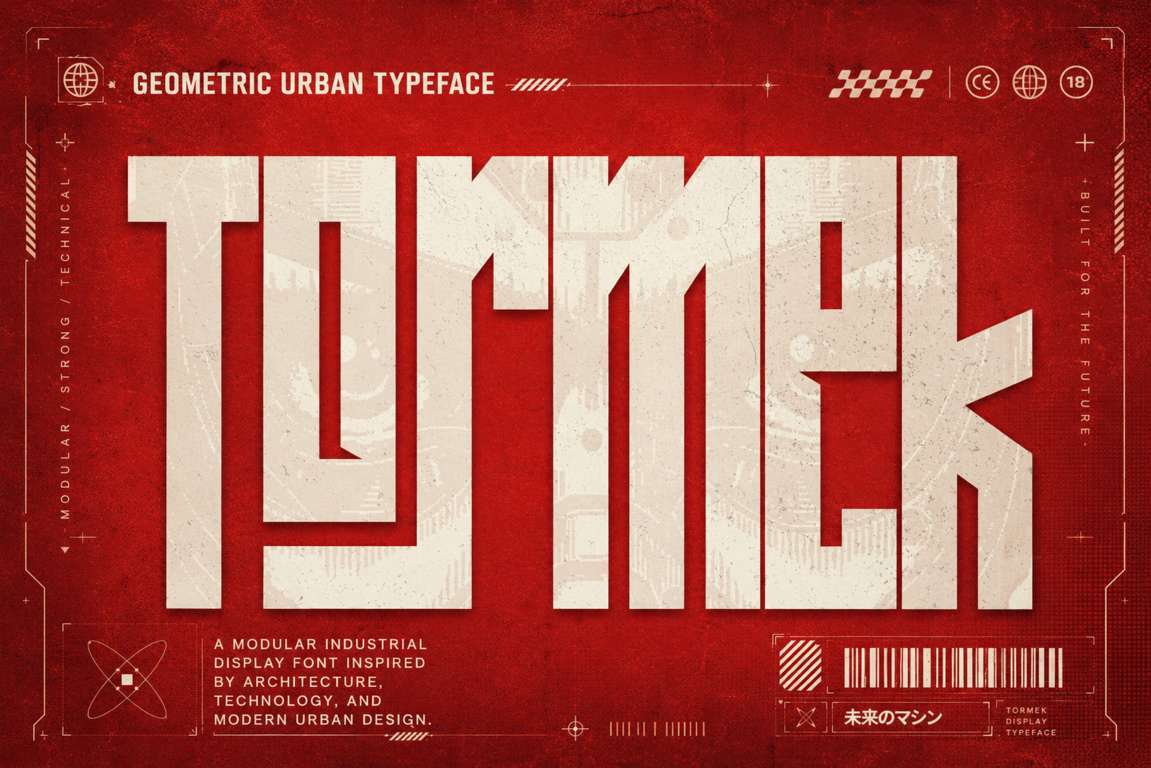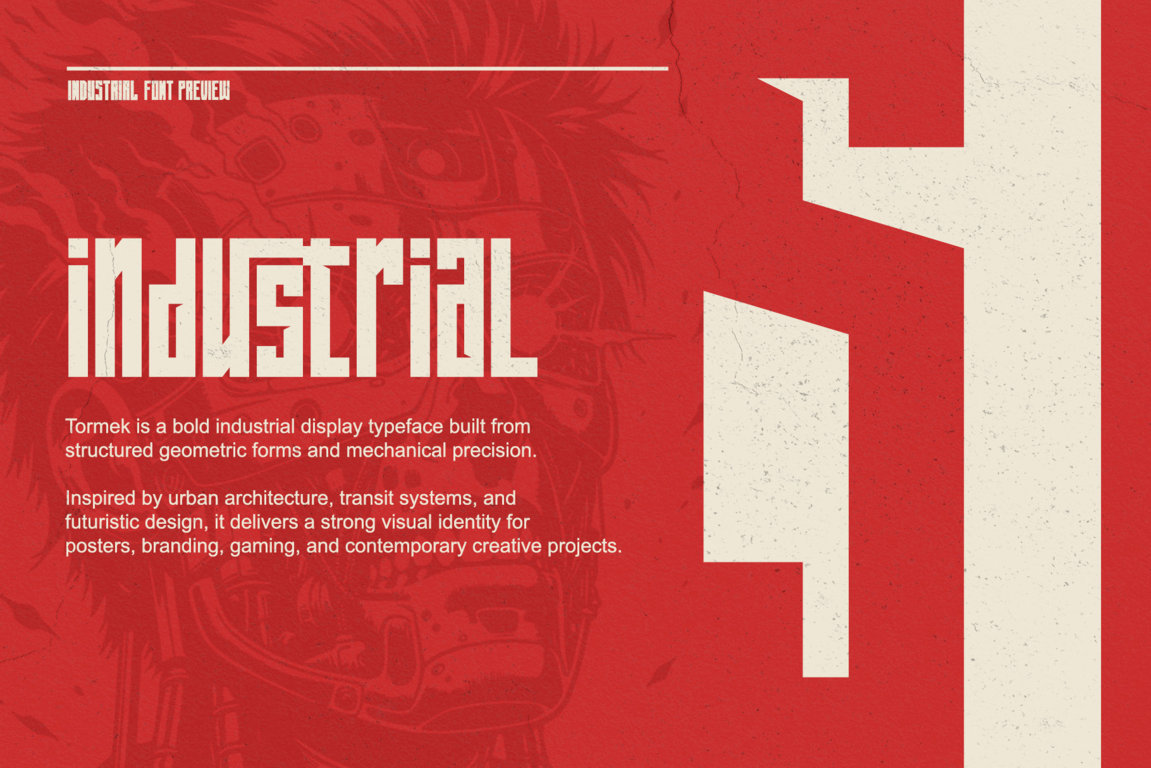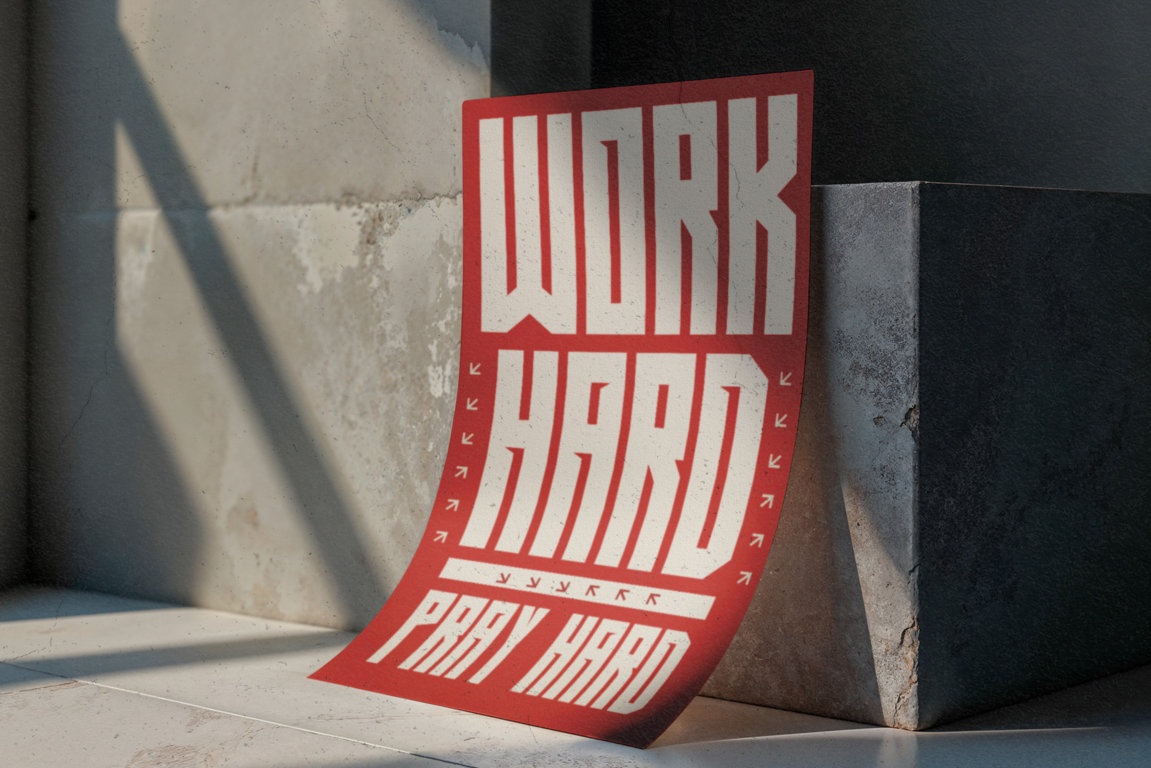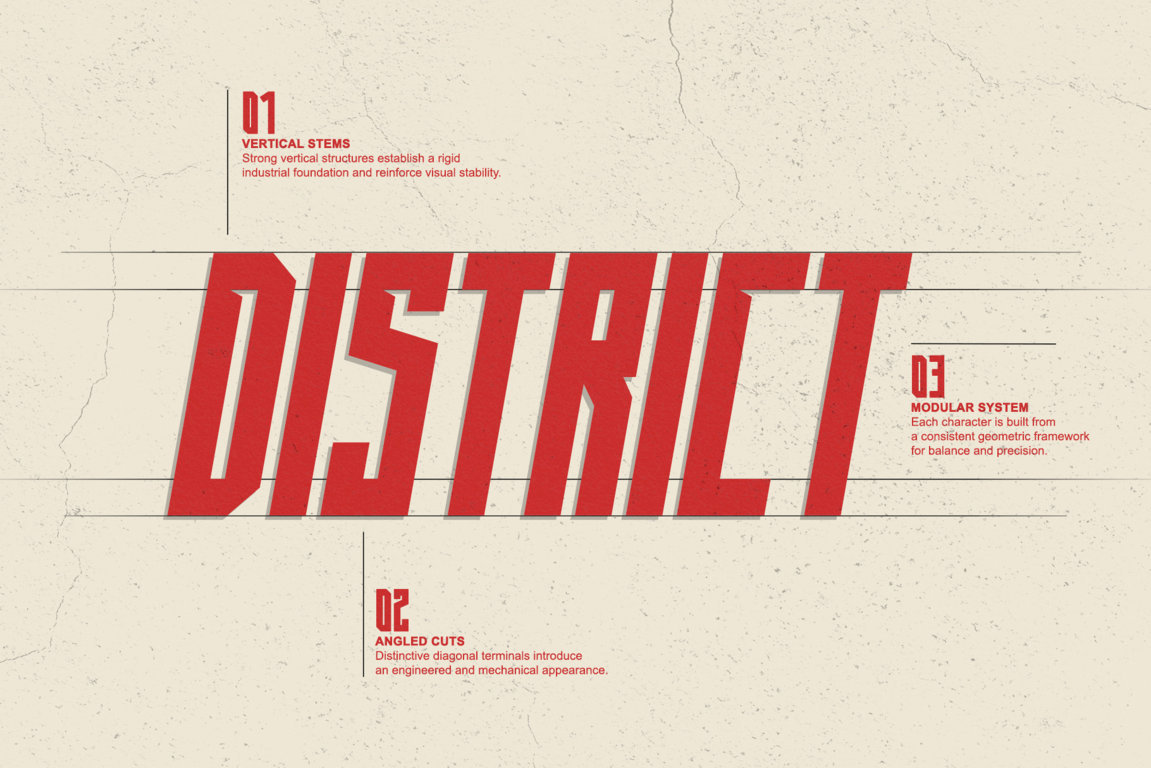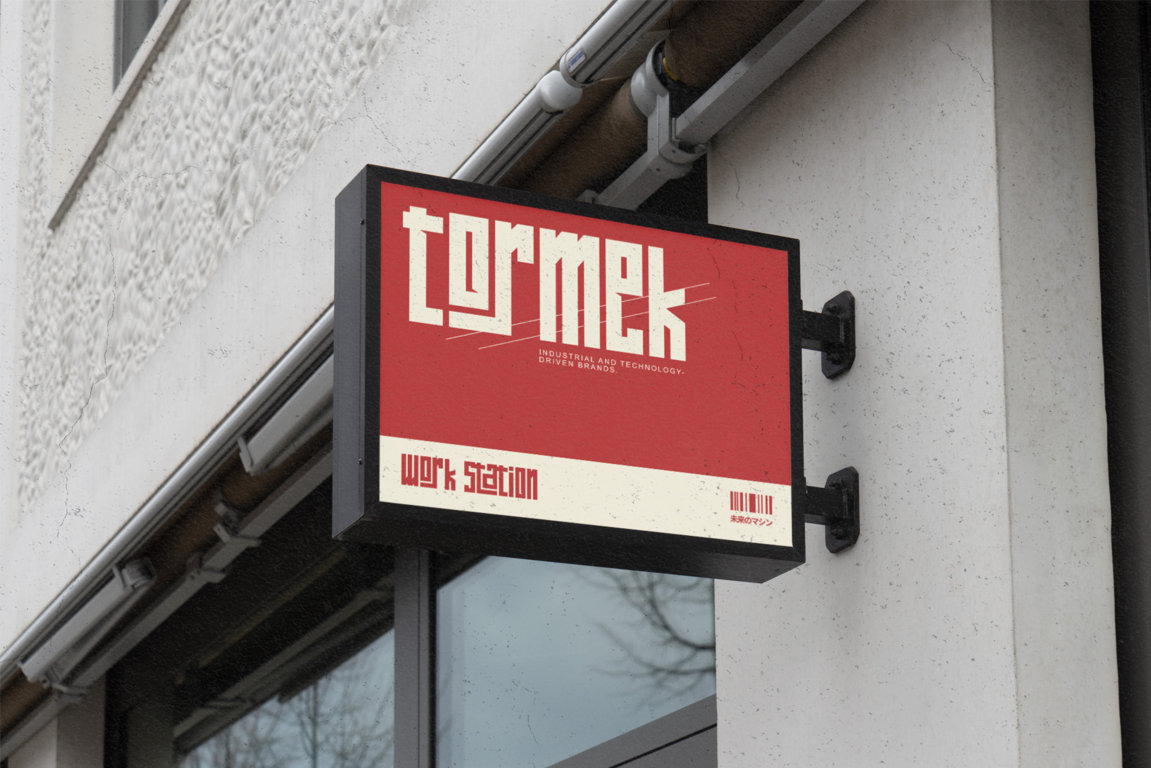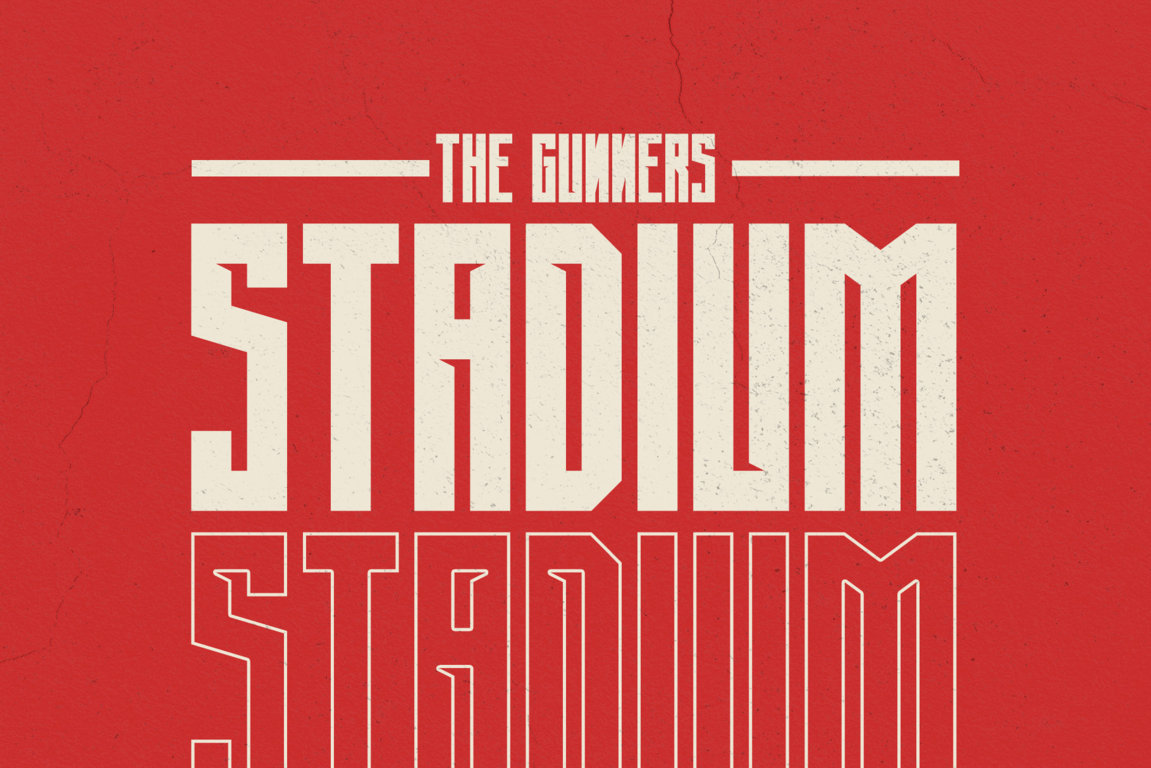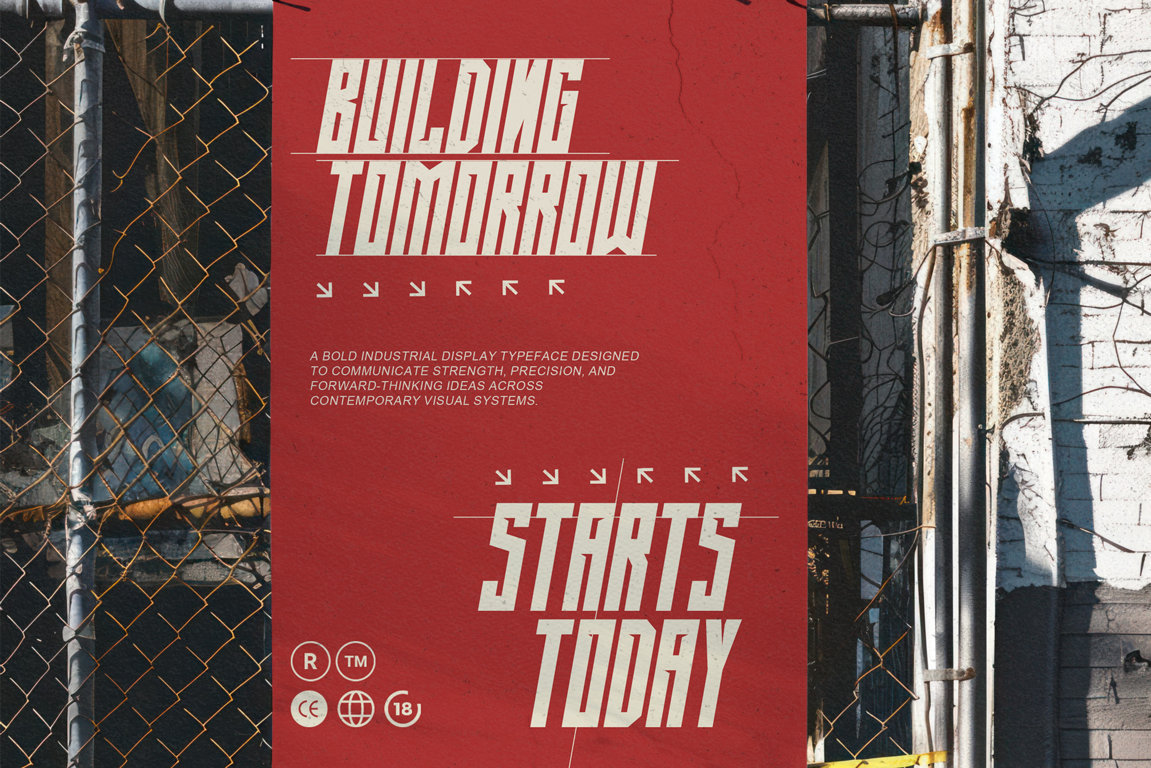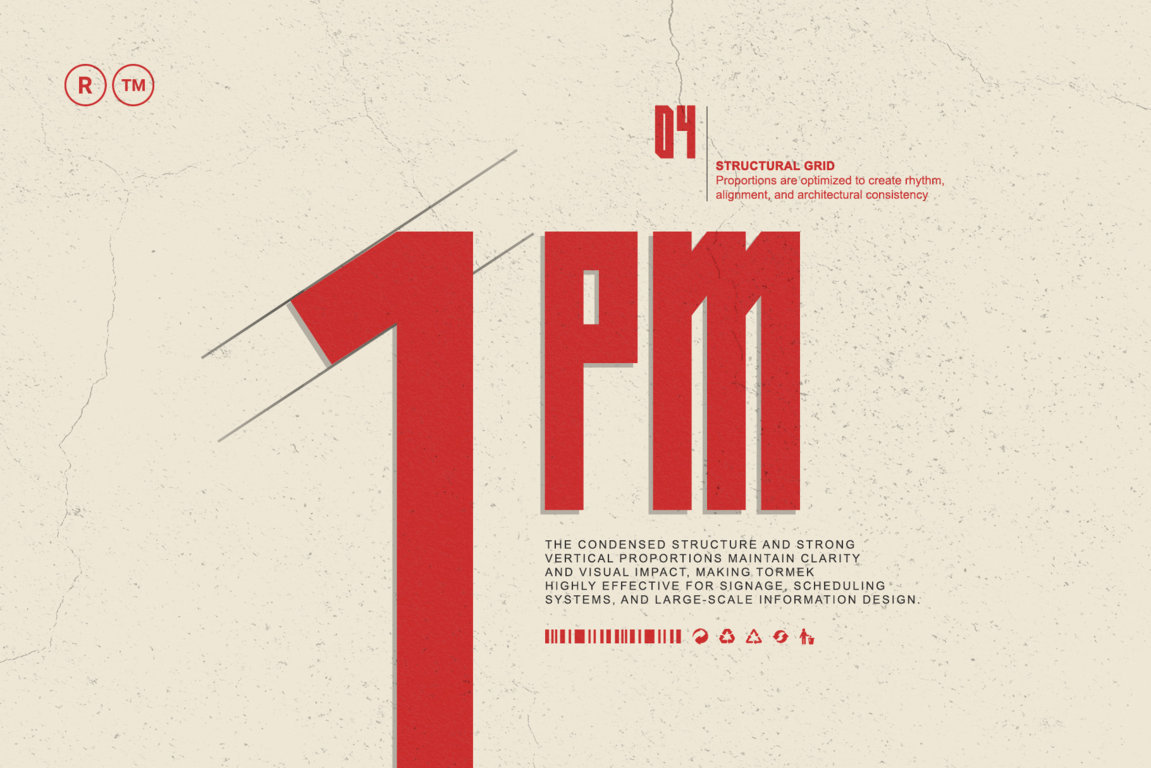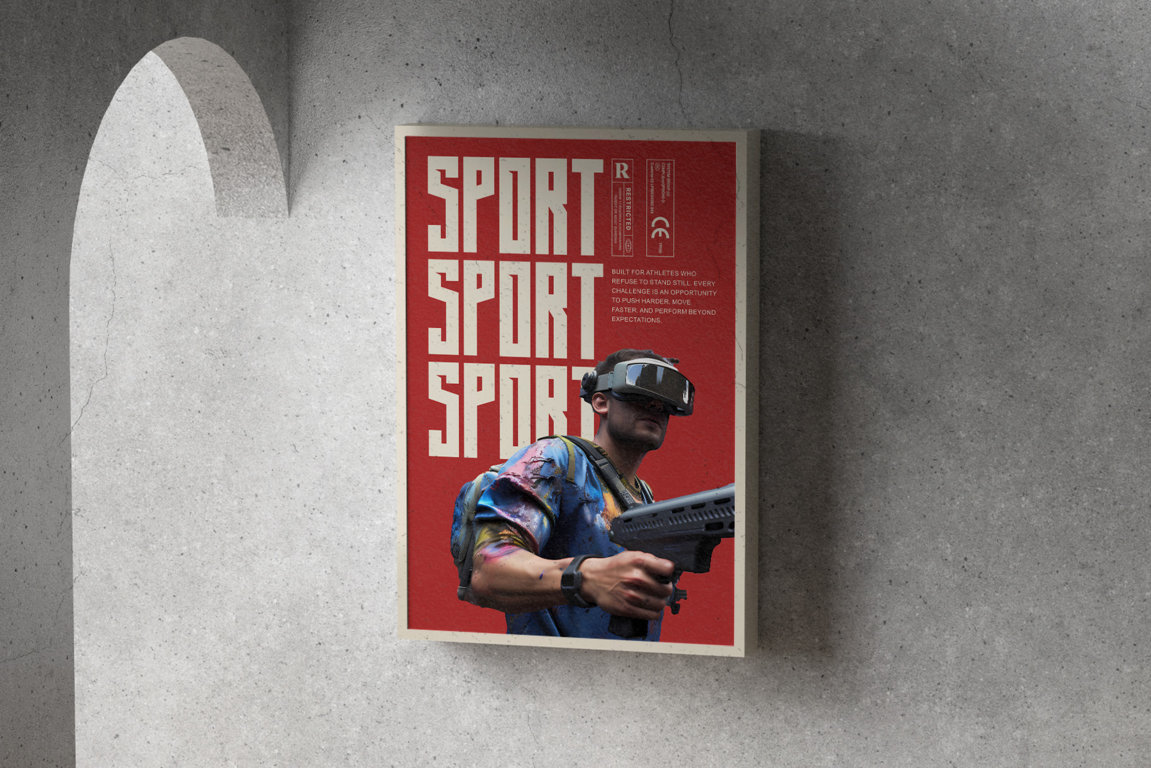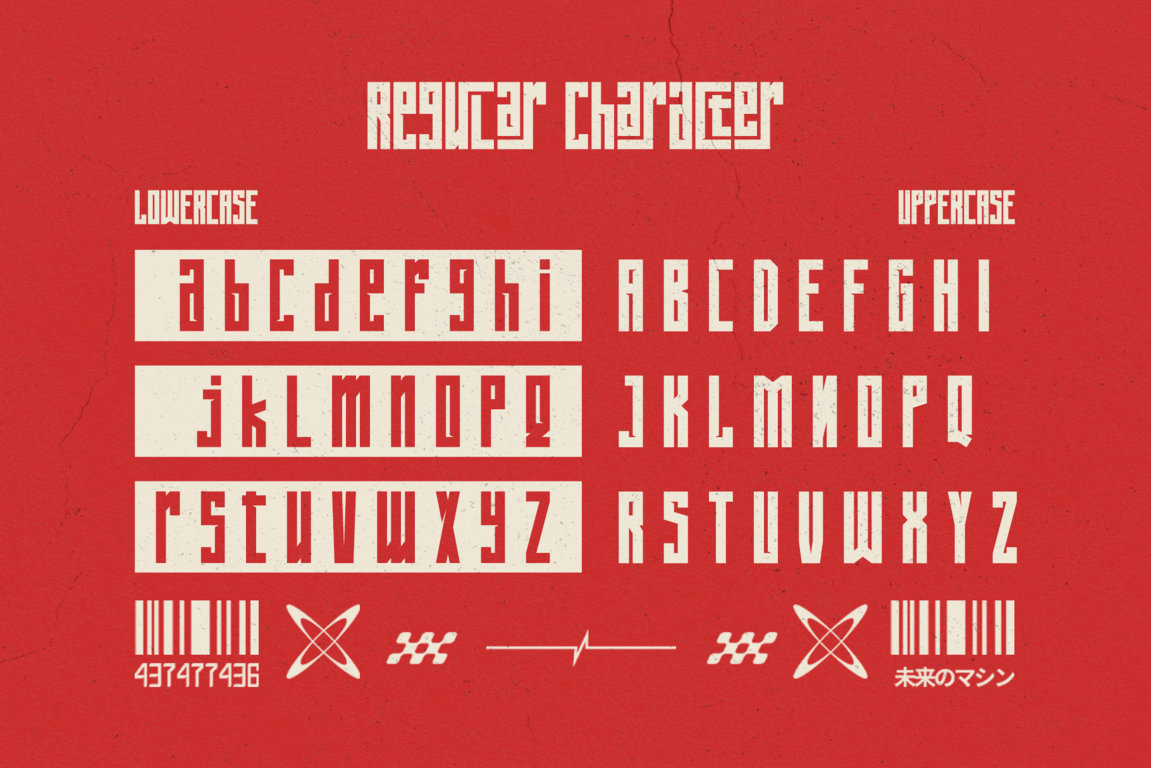
Tormek is a bold geometric urban display font built for powerful visual identities, futuristic headlines, and modern industrial design. Its tall modular letterforms, sharp architectural cuts, and distinctive geometric construction give every word a strong, technical, and immediately recognizable appearance.
Inspired by contemporary architecture, urban environments, technology, industrial graphics, and futuristic interface design, Tormek brings structure and impact to logos, posters, packaging, apparel, editorial layouts, and digital campaigns. Its condensed proportions make it especially effective for large headlines and space-conscious compositions where typography needs to feel bold without losing clarity.
Tormek combines rigid geometry with creative character details, making it suitable for projects that need to feel modern, experimental, technical, and confidently different. Use it to create striking brand names, architectural titles, motorsport graphics, gaming identities, technology campaigns, cyberpunk posters, product labels, and contemporary fashion designs.
The font includes uppercase and lowercase letters, regular characters, alternate letterforms, creative ligatures, accented characters, numerals, punctuation, symbols, and multilingual support. These features give designers more freedom to create customized wordmarks, distinctive headlines, and visually consistent branding systems.
Whether you are developing a futuristic product identity, designing an urban fashion collection, or creating a bold promotional poster, Tormek gives your typography a strong architectural presence and a modern industrial edge.
Tormek — modular structure, urban energy, and typography built for the future.
Multilingual Support
Tormek is a geometric urban display typeface designed for architectural logos, technology branding, futuristic posters, industrial packaging, gaming graphics, automotive designs, streetwear, editorial headlines, and digital advertising. It includes uppercase and lowercase letters, alternate characters, ligatures, accented characters, numerals, punctuation, symbols, and multilingual support.